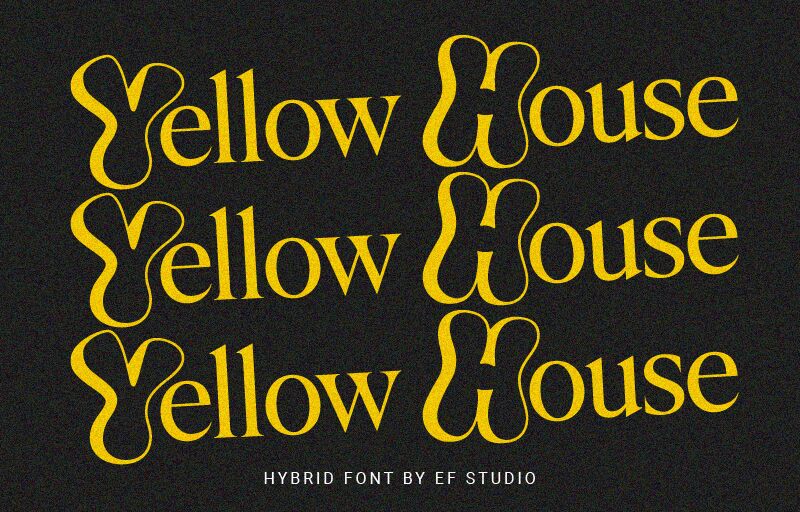
Yellow House
Yellow House font by Ef Studio is a free display font with a stunning style. Certain thin strokes and decorative lines make it outstanding in titles and headlines. It has an overall appearance of elegance, yet some whimsical attitude is also present.